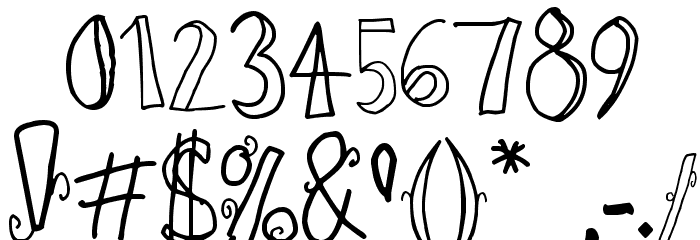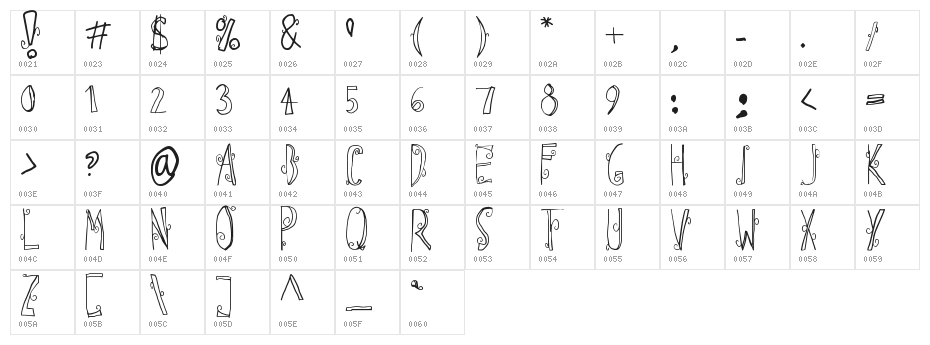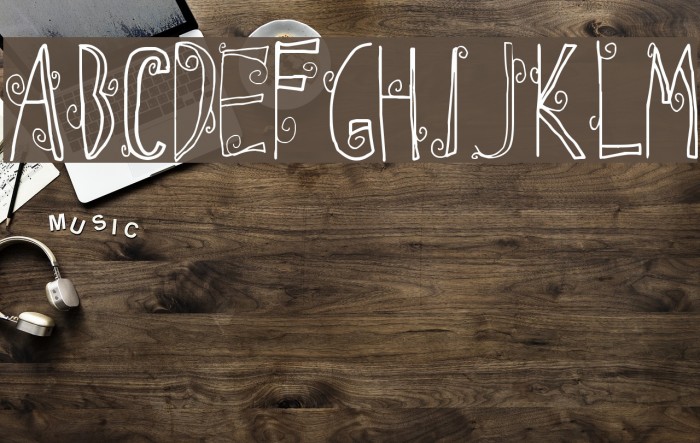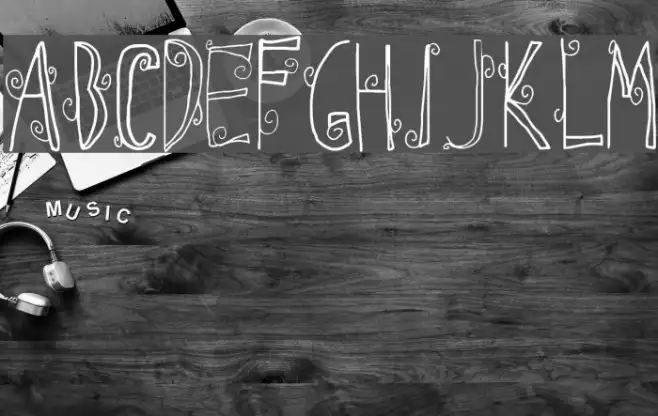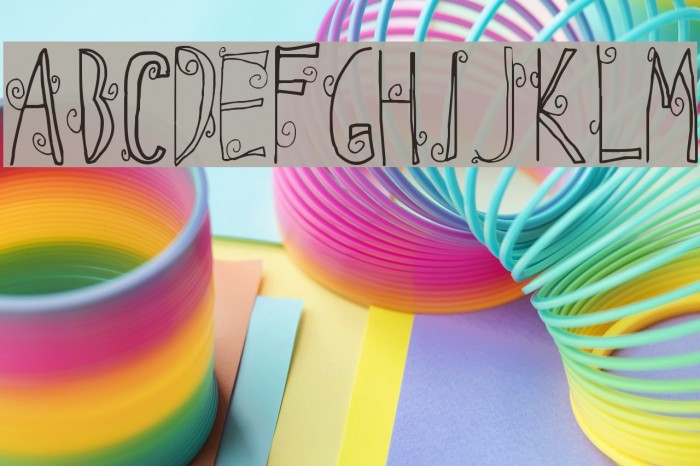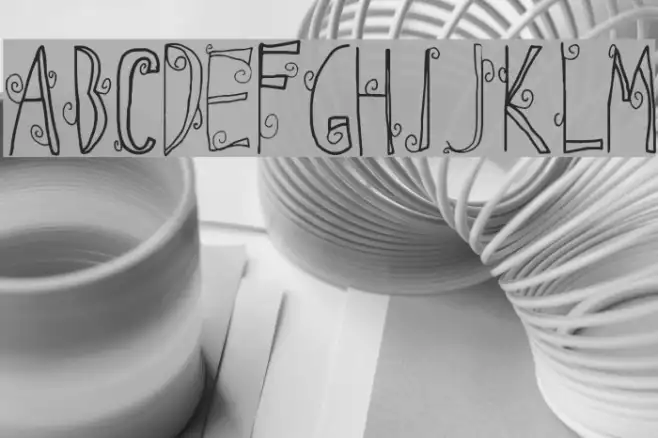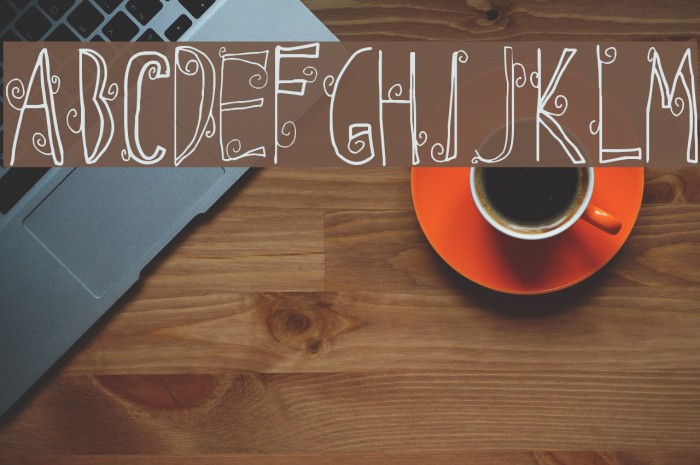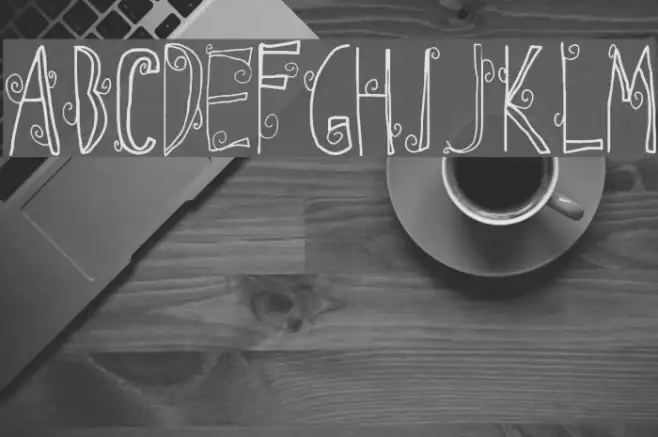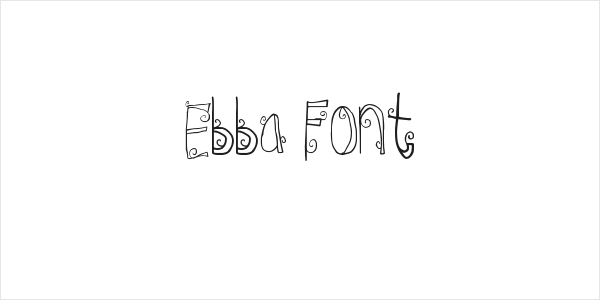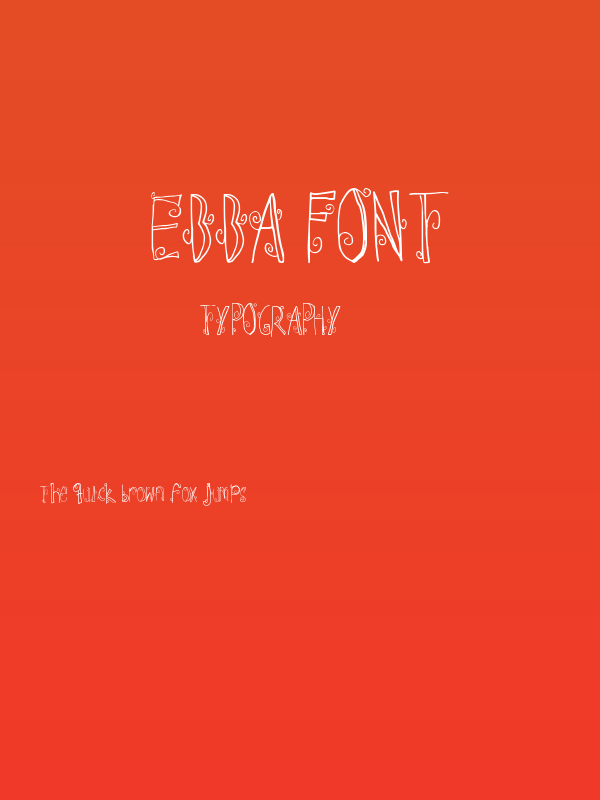
Ebba Font Description
This whimsical and decorative font features playful curls and swirls extending from each character, giving it a unique and artistic flair. The uppercase letters are tall and slender, while the lowercase letters maintain a consistent style with slightly exaggerated ascenders and descenders. The numbers and special characters follow the same decorative theme, ensuring a cohesive look across all text. This font is perfect for creative projects that require a touch of elegance and fun, such as invitations, greeting cards, or artistic posters.
| Use Case | Headlines, Logos, Artistic Projects |
| Proposed Projects | Ideal for invitations, greeting cards, artistic posters, and creative branding. |